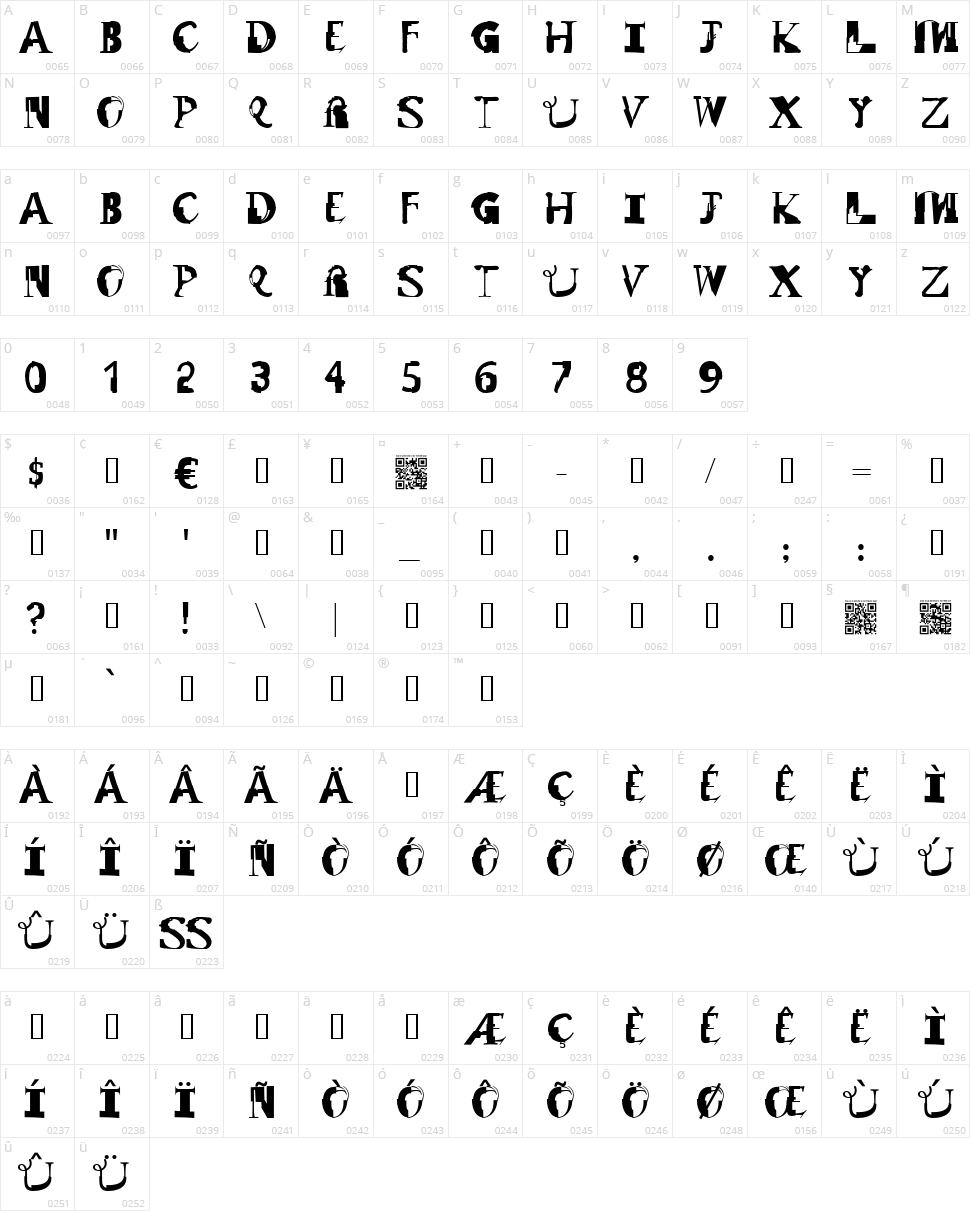
Remix
Remix Font
The Remix font is a font designed by me. It is based on random fonts. I created this font using Adobe Illustrator and Fontographer 5. Like all other JLH Fonts, this font is in the public domain and comes with the Euro sign.